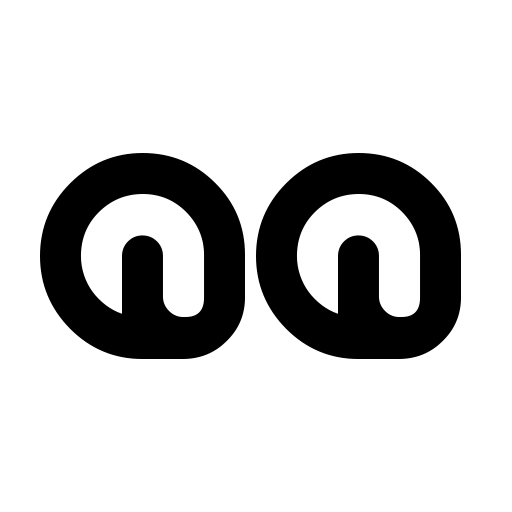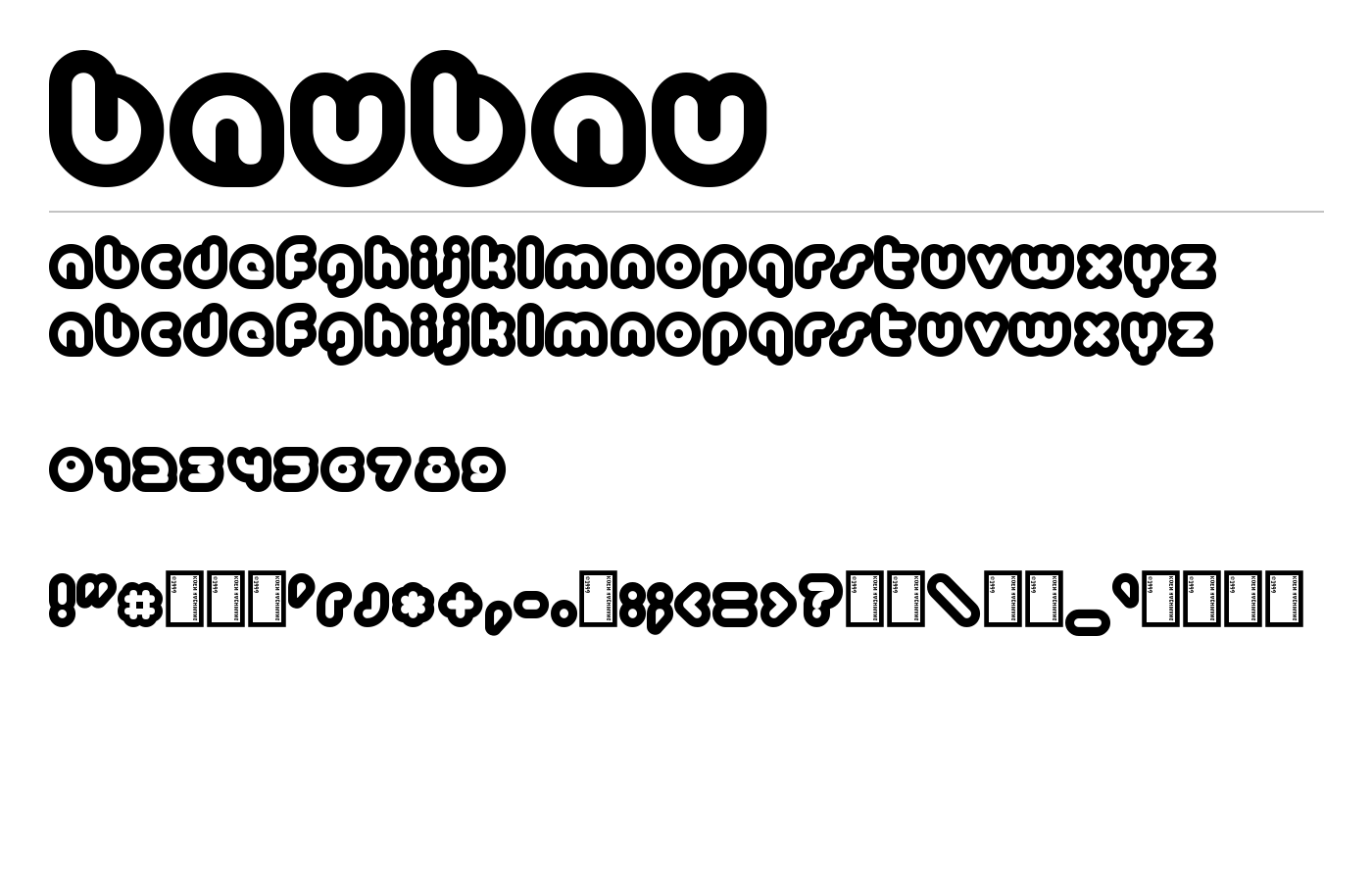
Baubau is a bold, rounded sans serif font with a playful and modern feel, characterized by thick strokes and smooth curves that create a friendly and approachable appearance. Its unique, bubble-like letterforms make it ideal for eye-catching headlines, logos, and branding that target a youthful or creative audience. This font works especially well in contexts where a fun, informal tone is desired, such as packaging, posters, or digital media.
Baubau Font
About Baubau Font